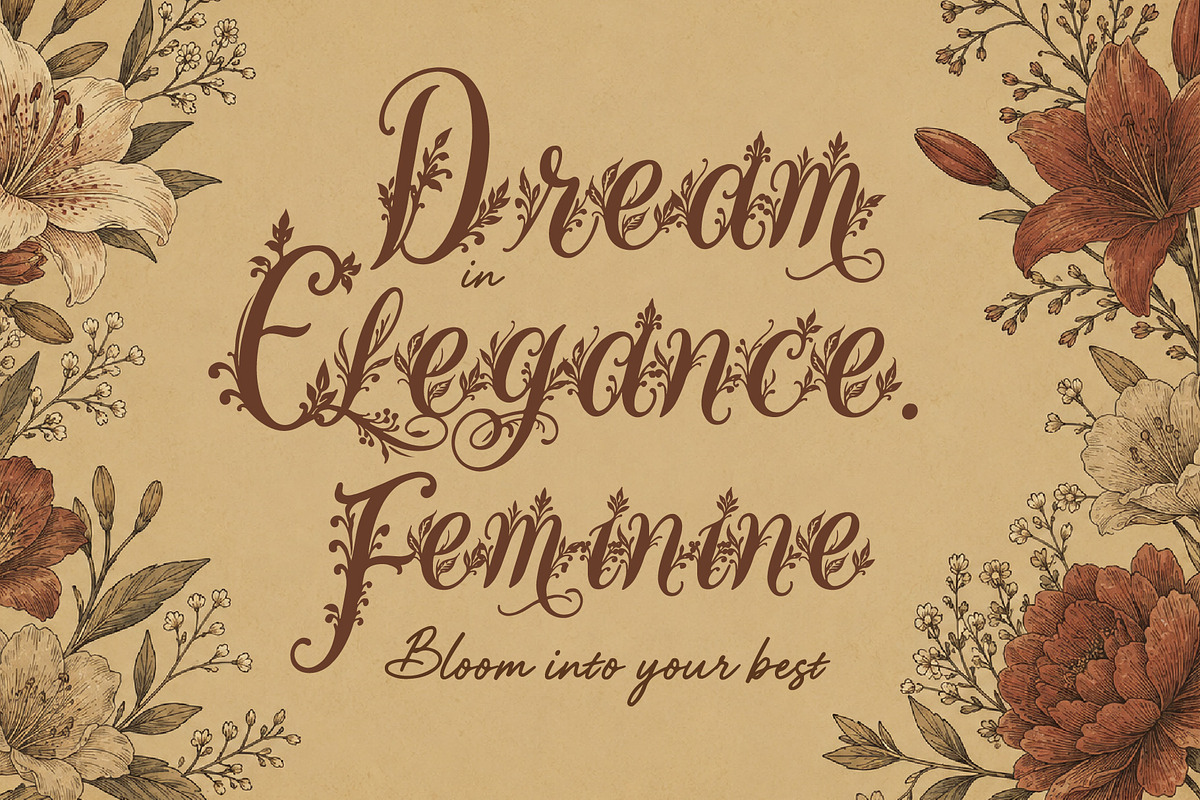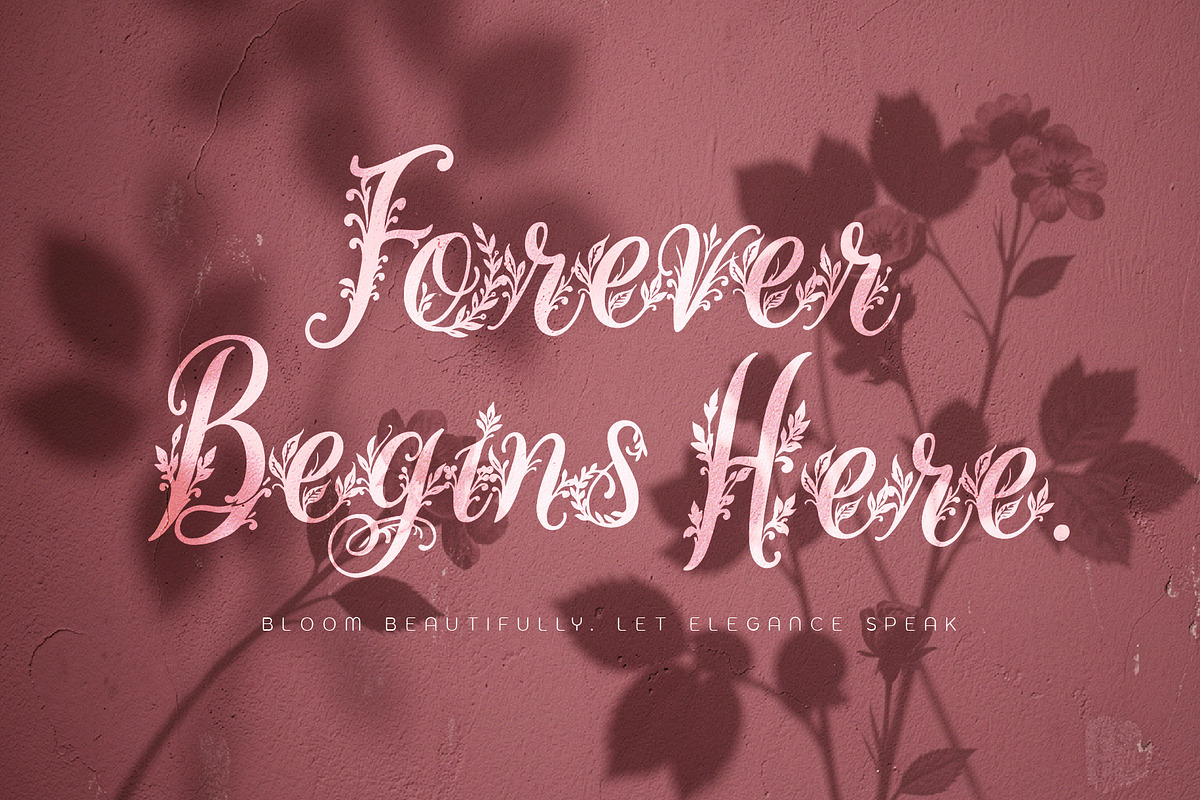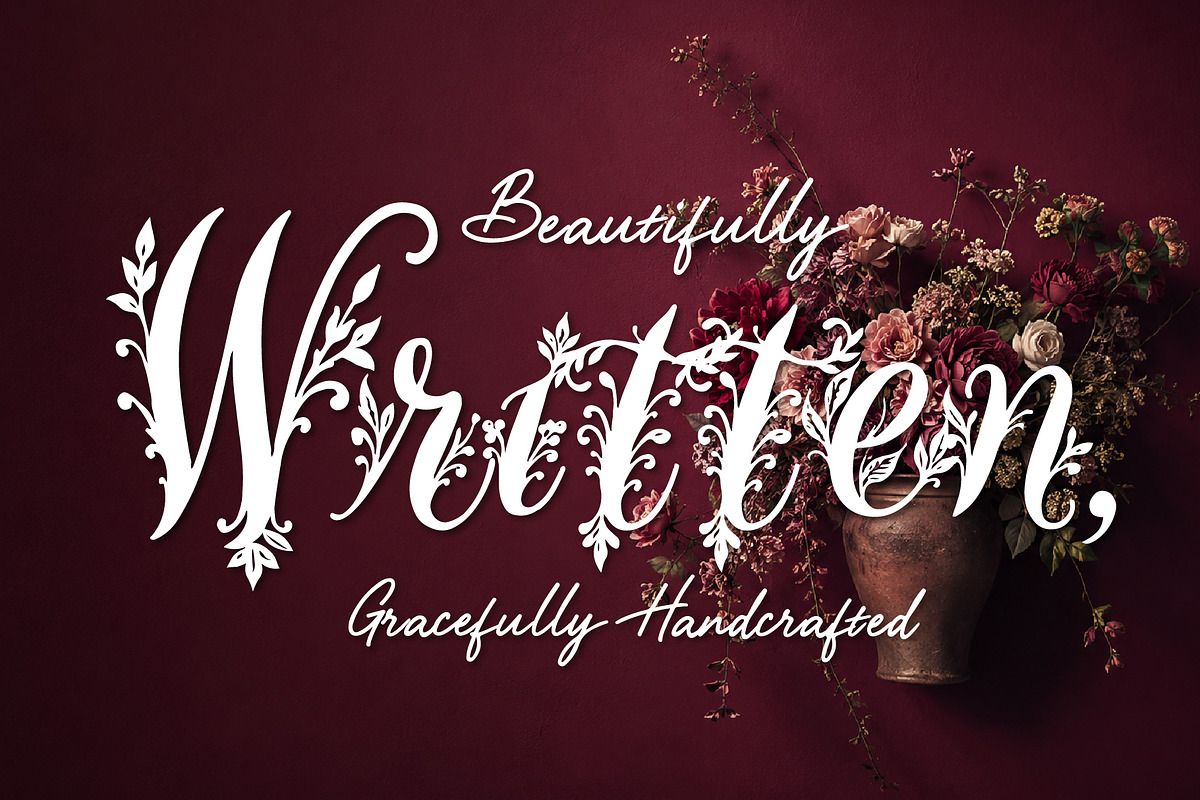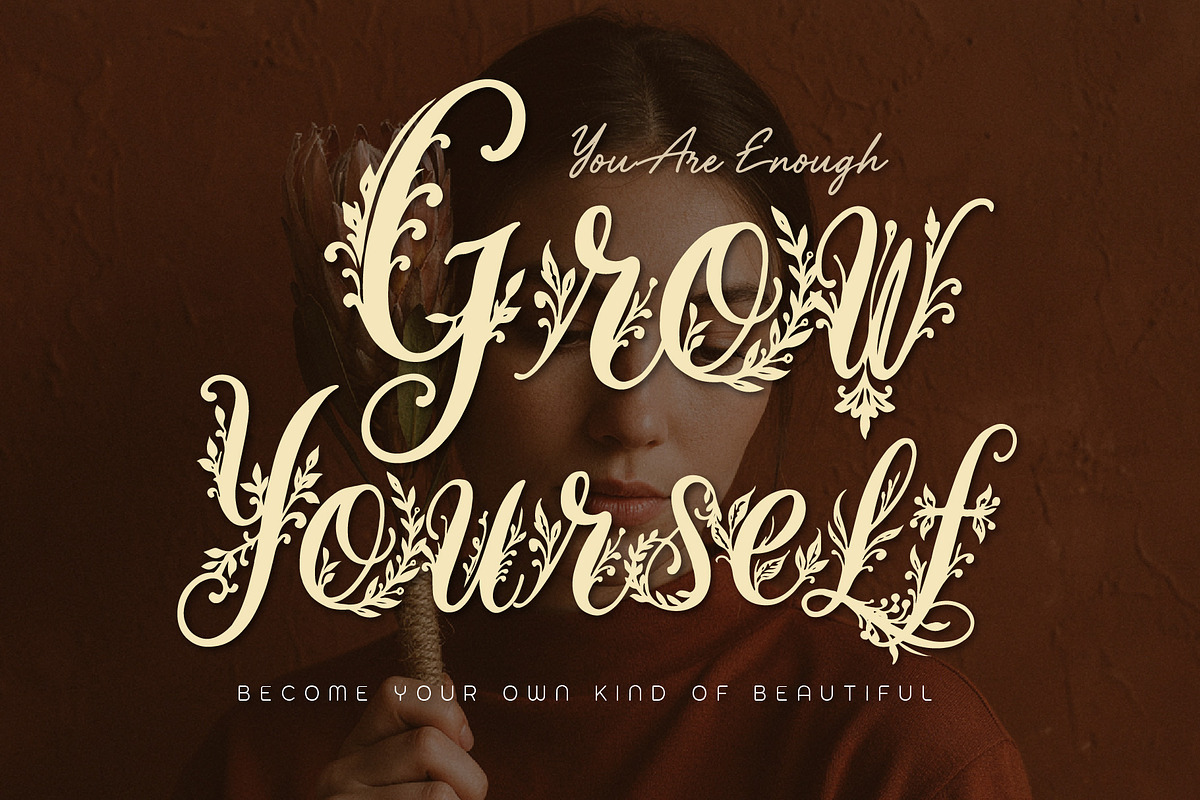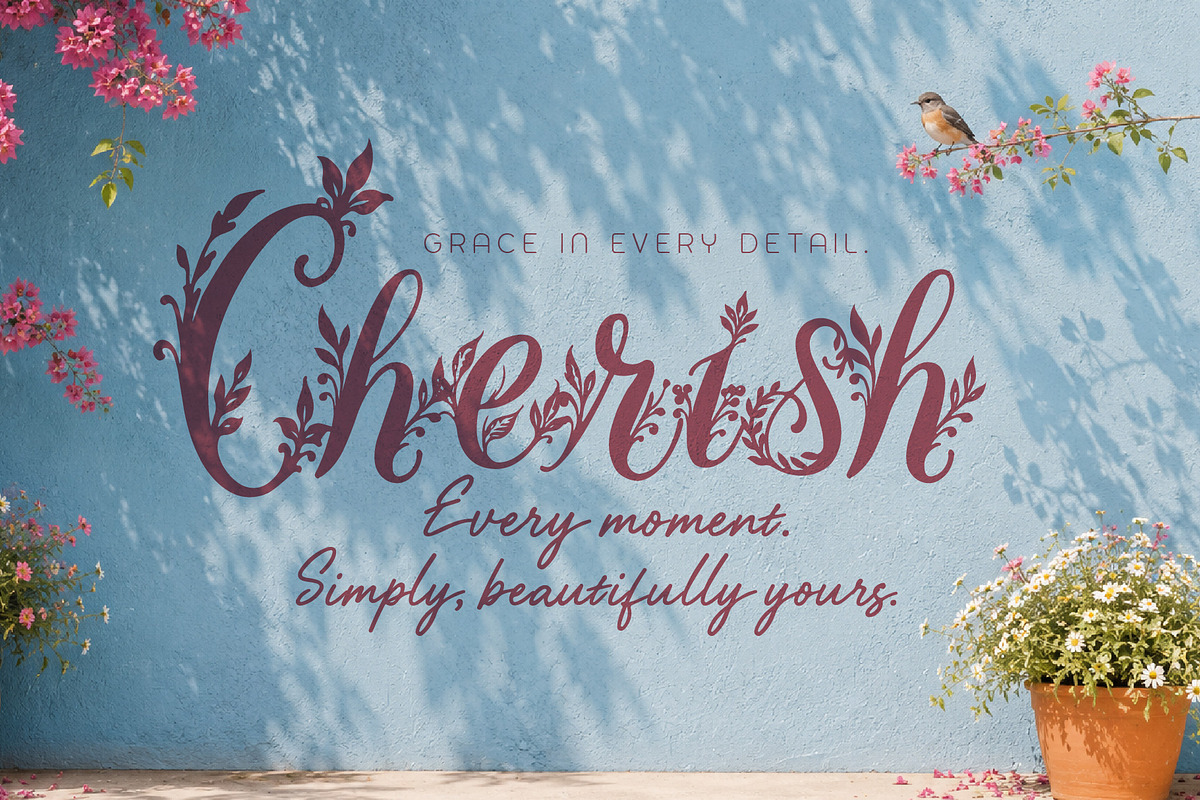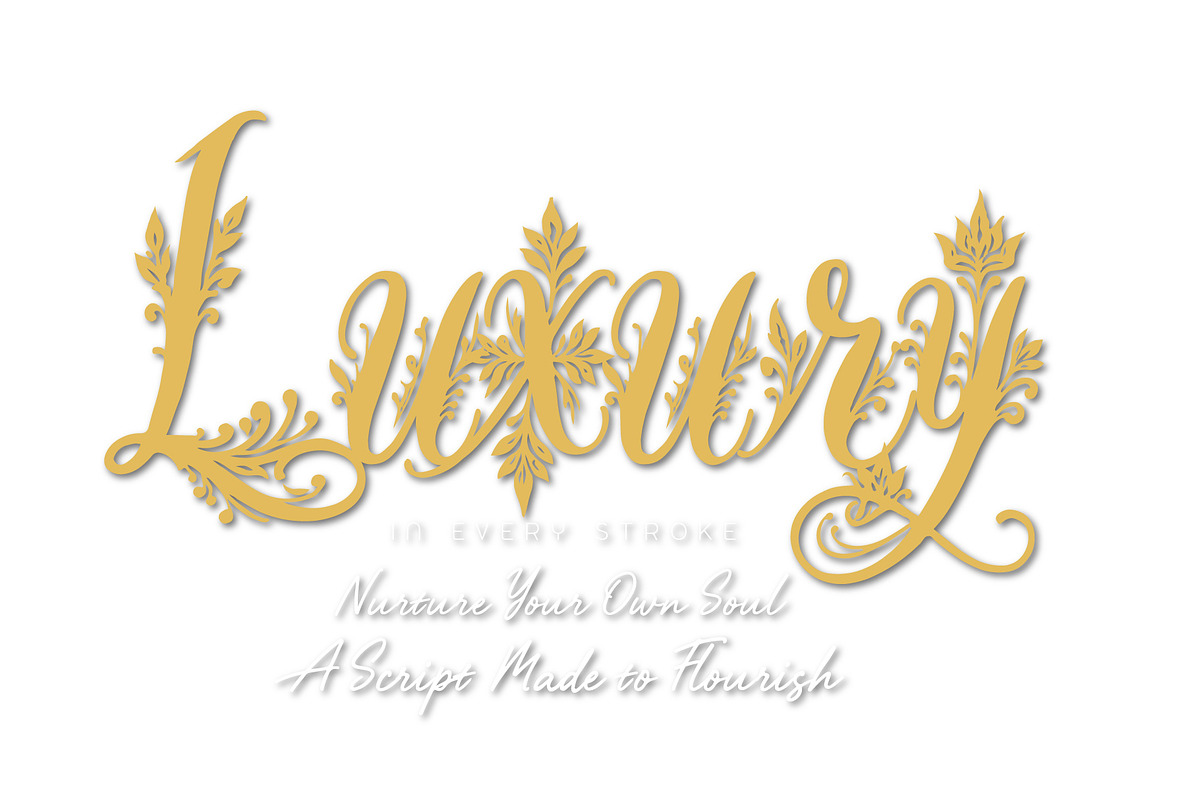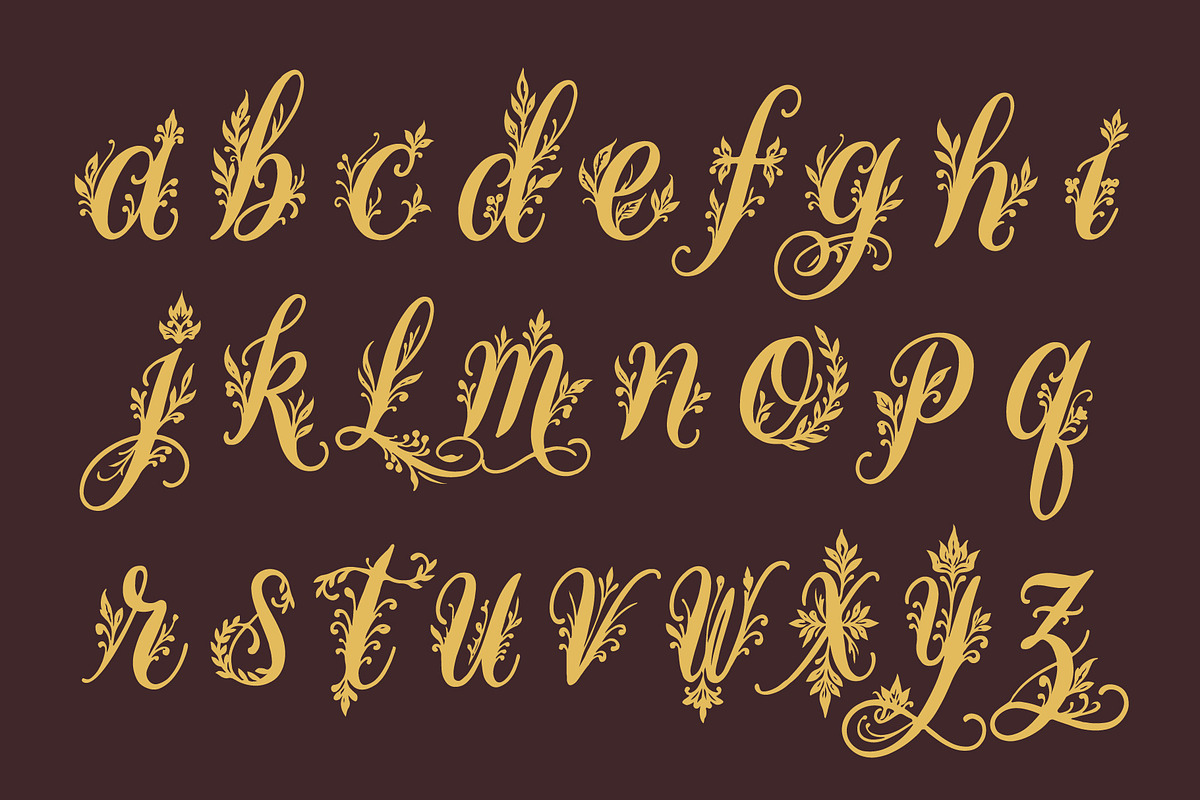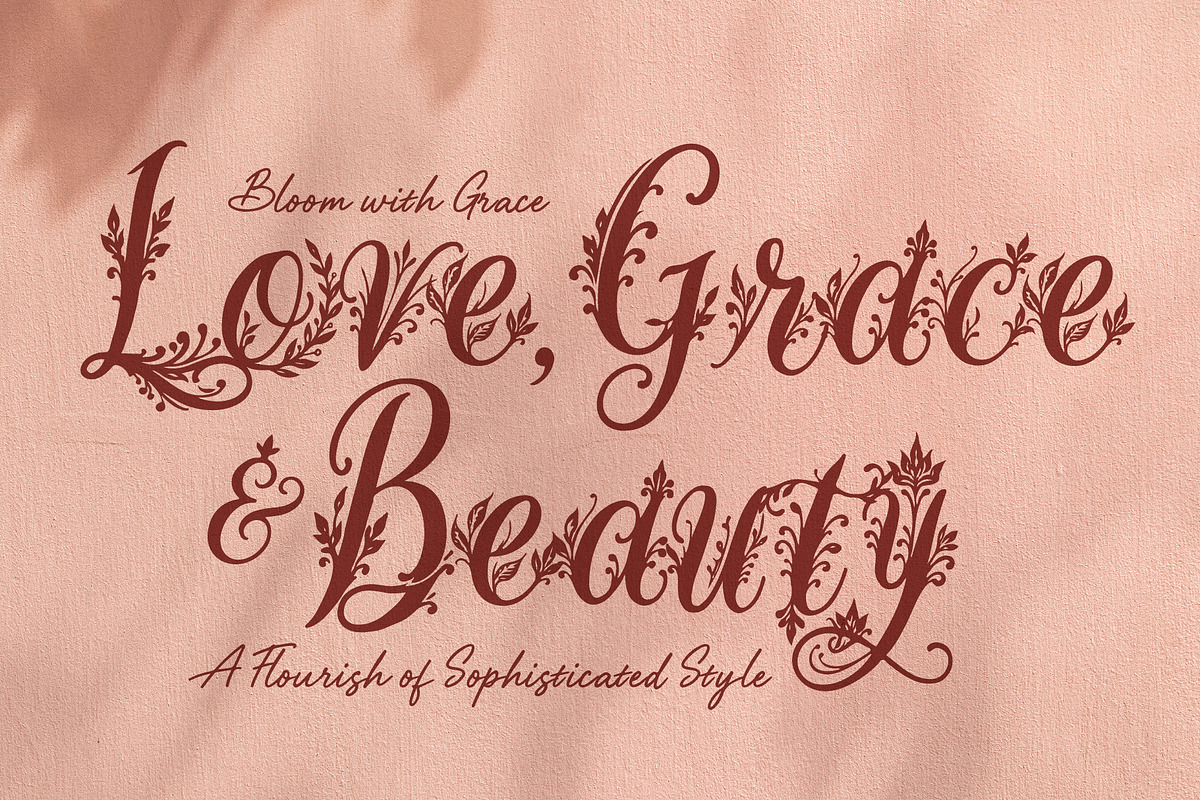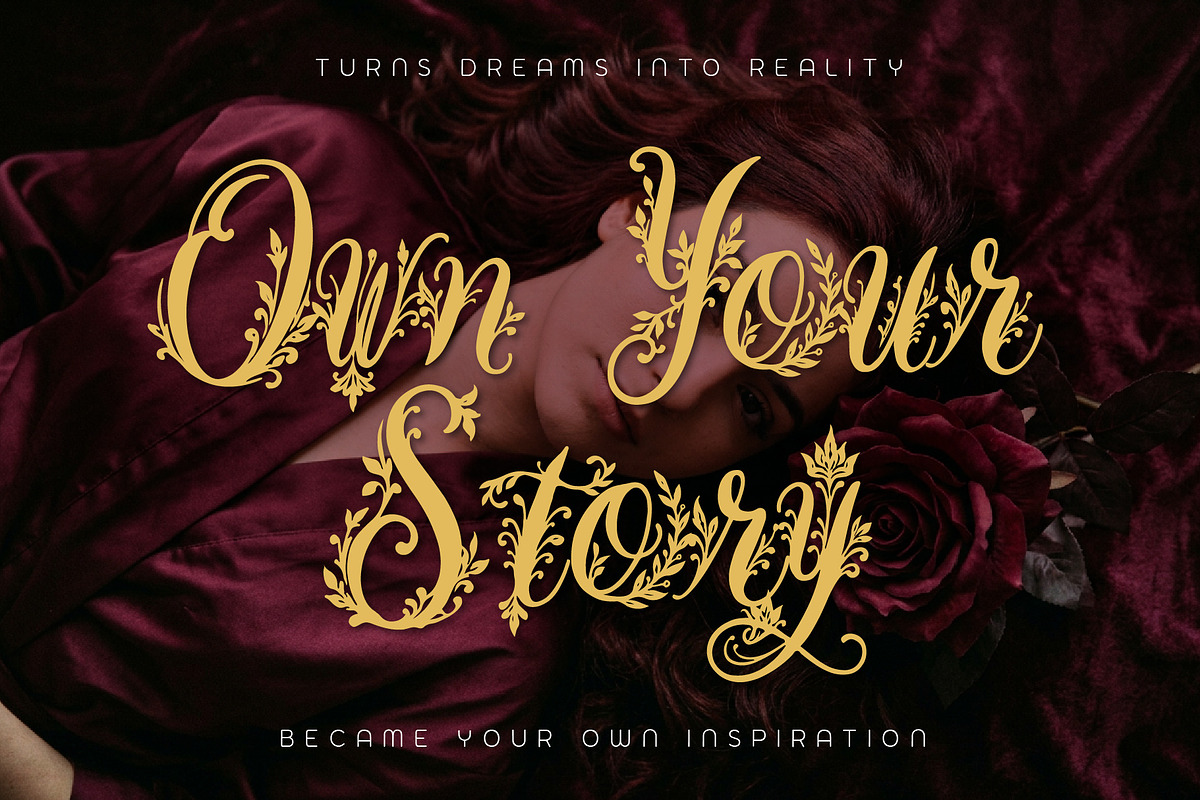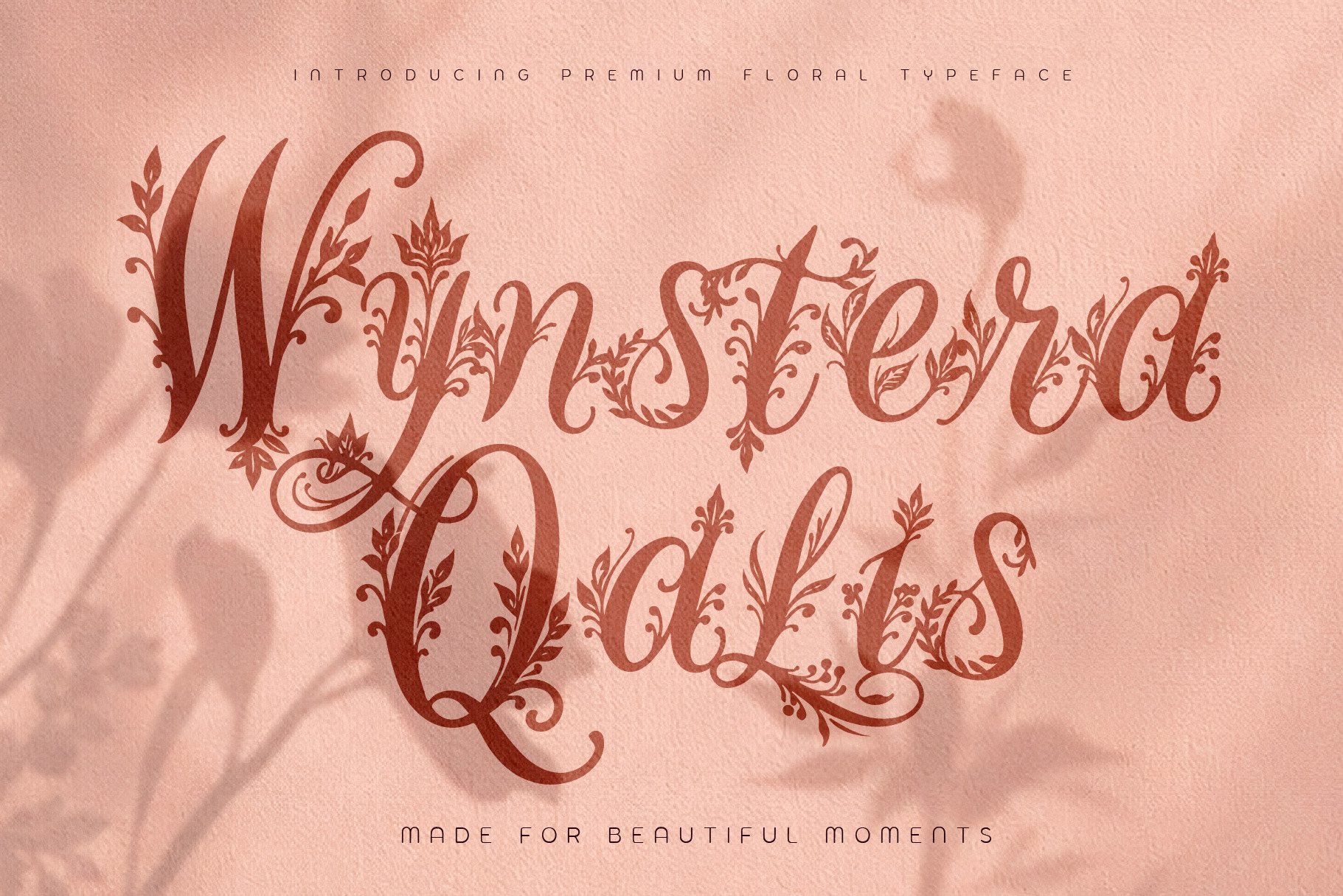
WynsteraQalis Decorative Floral font
Wynstera Qalis is a premium decorative script font that blends graceful lettering with delicate floral-inspired details. Designed with elegant curves, expressive swashes, and ornamental character, it brings a luxurious and artistic touch to every design.
Perfect for wedding invitations, luxury branding, fashion logos, beauty packaging, stationery, greeting cards, editorial designs, quotes, and elegant social media graphics. Wynstera Qalis is made to create a sophisticated visual identity while maintaining a distinctive handcrafted feel.